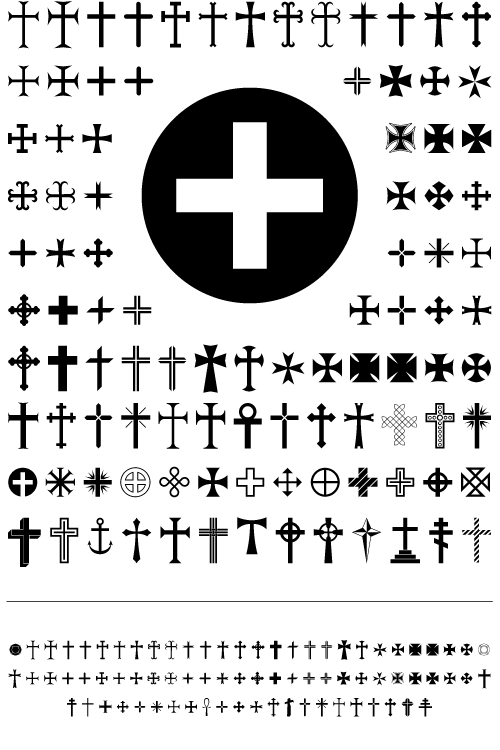
Ironside Crosses
The Cross has a rich and varied history and has been used in many cultures. It has been around since before christianity, and has been used as a symbol of pride, honor, protection, and persecution. Of the many forms of the Cross, the Latin, Celtic, Greek, and the Maltese are the most common. The Egyptian cross, called the Ankh (cross with a circle on top) represents life and regeneration. The Maltese Cross began as a symbol for hospitallers during the crusades. The Maltese cross is also used as a symbol of protection by Firefighters. I spent many hours doing research on the internet and at the library finding the different manifestations of this symbol. I also spent a lot of time drawing the icons with mathematical precision. The name Ironside comes from the days of Oliver Cromwell, the Lord Protector of England (possibly a very distant relative of mine). Cromwell was a Puritan who used a thrown together army dubbed the Ironsides to overthrow the rule of Charles I. My goal with this font was simply to make available as many cross symbols as possible. Ironside contains 174 cross symbols. Most of the designs have both a rectangular and square version. Year Designed: 2004 Weights: Regular Formats Available: Windows TrueType Macintosh PostScript EPS (YWFT Vector Set) Price: Single weight - $18.95 USD Single EPS Set - $9.99 USD Purchase Now: MyFonts.com YouWorkForThem 1 YouWorkForThem 2 YouWorkForThem 3 |